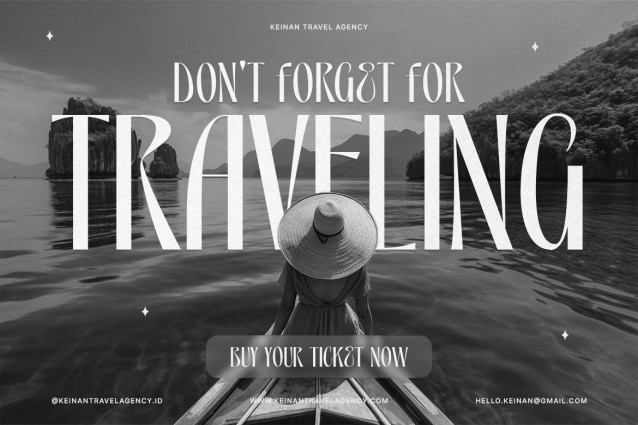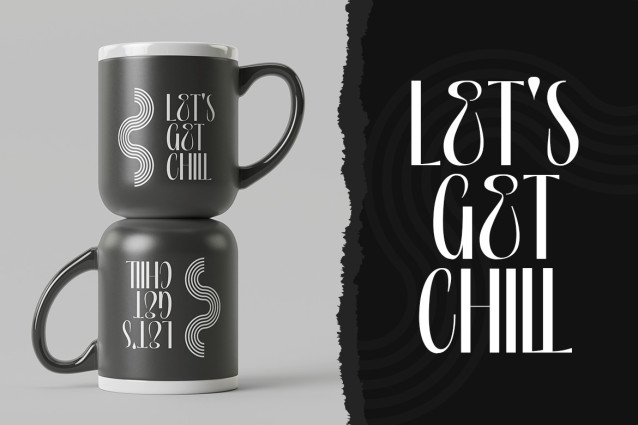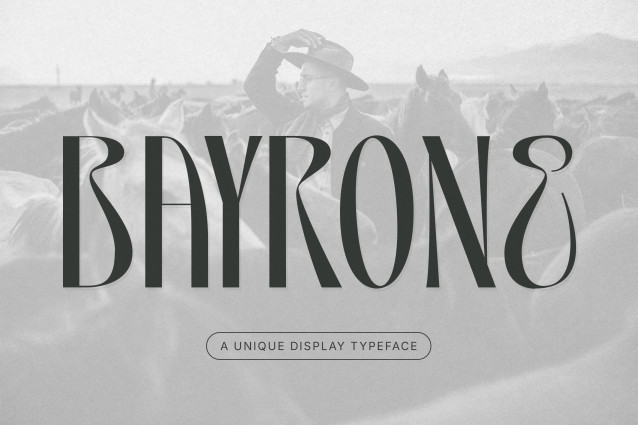
Bayrone Display Font
Bayrone Display Font is a refined and stylish typeface that merges elegance with modernity. Characterized by its elongated letterforms, high contrast strokes, and artistic curves, Bayrone brings a sense of luxury and sophistication to any design. Each character is carefully crafted to stand out—perfect for branding, editorial headlines, fashion campaigns, packaging, or any project that needs a bold visual identity.
Inspired by vintage Western elegance with a contemporary twist, Bayrone adds drama and flair to every letter, making it ideal for statement designs that command attention.